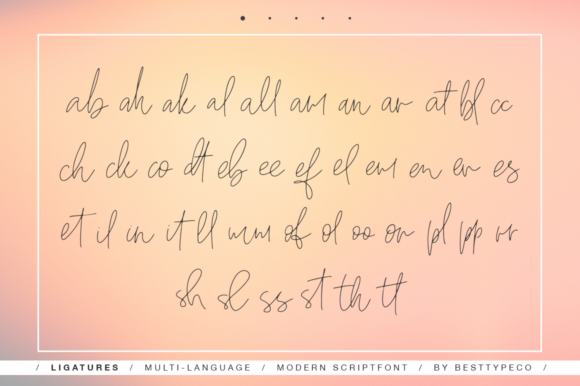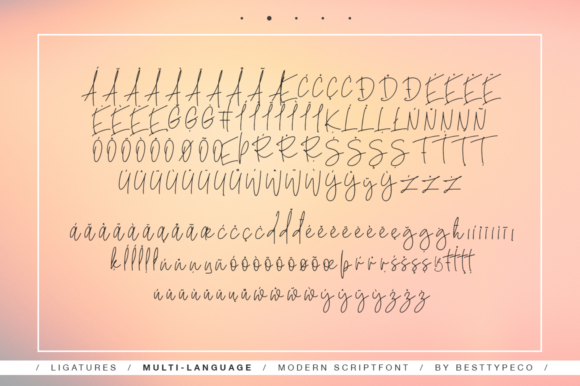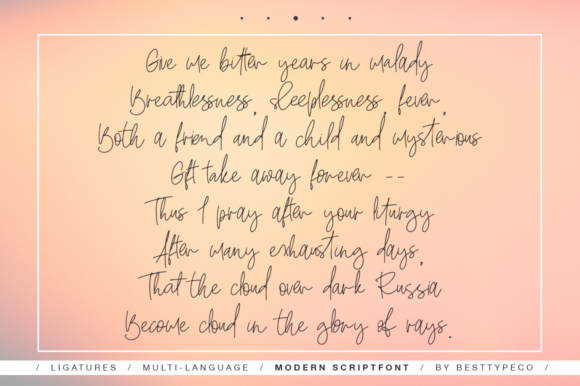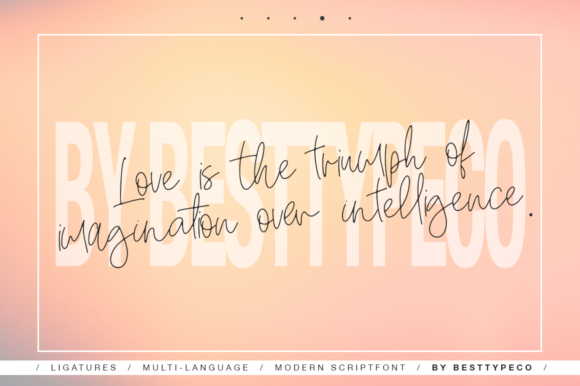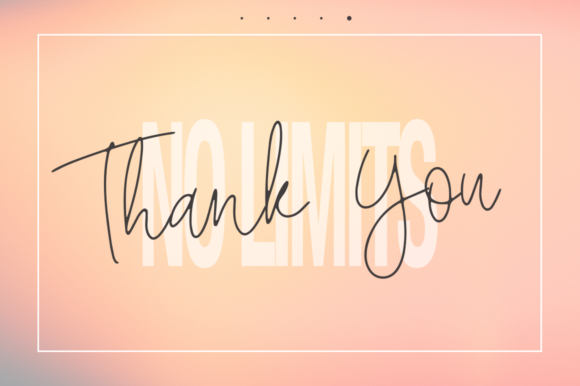
Introduction to No Limits Font
As a designer, you know that sometimes the best ideas strike when you least expect them – like during a spontaneous sketching session with a cup of coffee or in the middle of brainstorming with a client. That’s exactly what happened when I stumbled upon the No Limits Font, a stunning, handmade calligraphy font that’s about to take your creative projects to the next level. This beautiful font is not just a design resource, but a key to unlocking your full creative potential.
With its high-quality, transparent background, the No Limits Font is perfect for any project that requires a touch of elegance and sophistication. Whether you’re working on a branding material, business card, quote, or poster, this font is sure to elevate your design and make it stand out. And the best part? You can download it for free, making it an invaluable asset for designers of all levels.
So, get ready to unleash your creativity with the No Limits Font and discover a whole new world of design possibilities. In this article, we’ll dive deeper into the world of this amazing font and explore its features, uses, and benefits for designers like you.
Key Features of No Limits Font
- High-quality, professional font perfect for creative projects and designs.
- Transparent background, allowing for easy layering and customization in design resources.
- Large character set with extensive language support, ideal for international designs and projects.
- High-resolution design, suitable for use in various resolutions and screen sizes.
- Unique, modern design aesthetic, making it a standout choice for creative projects and designs.
Honest Review: No Limits Font
I recently stumbled upon the No Limits Font while searching for a design resource for a creative project. I was drawn to its high quality and unique style, which made it perfect for my needs.
Here are some things that work well with the No Limits Font:
- ✨ The transparent background feature allows for easy layering and customization in design applications.
- ✨ The font is highly versatile and can be used for a wide range of creative projects, from logos to print materials.
- ⚠️ The font may not be suitable for all design projects, particularly those requiring a more traditional or conservative aesthetic.
- ⚠️ Some users may find the font’s unique style to be distracting or overwhelming in certain contexts.
Overall, I’m impressed with the No Limits Font and would recommend it to designers looking for a high-quality, free design resource for their creative projects. Just be sure to consider the potential limitations and use it judiciously in your designs.
Common Use Cases for No Limits Font
The No Limits Font is ideal for a variety of creative projects, including brochures, flyers, posters, and business cards. You can also use the font to create custom graphics, logos, and icons. With its high-quality design and versatility, the No Limits Font is a valuable design resource for any creative project.